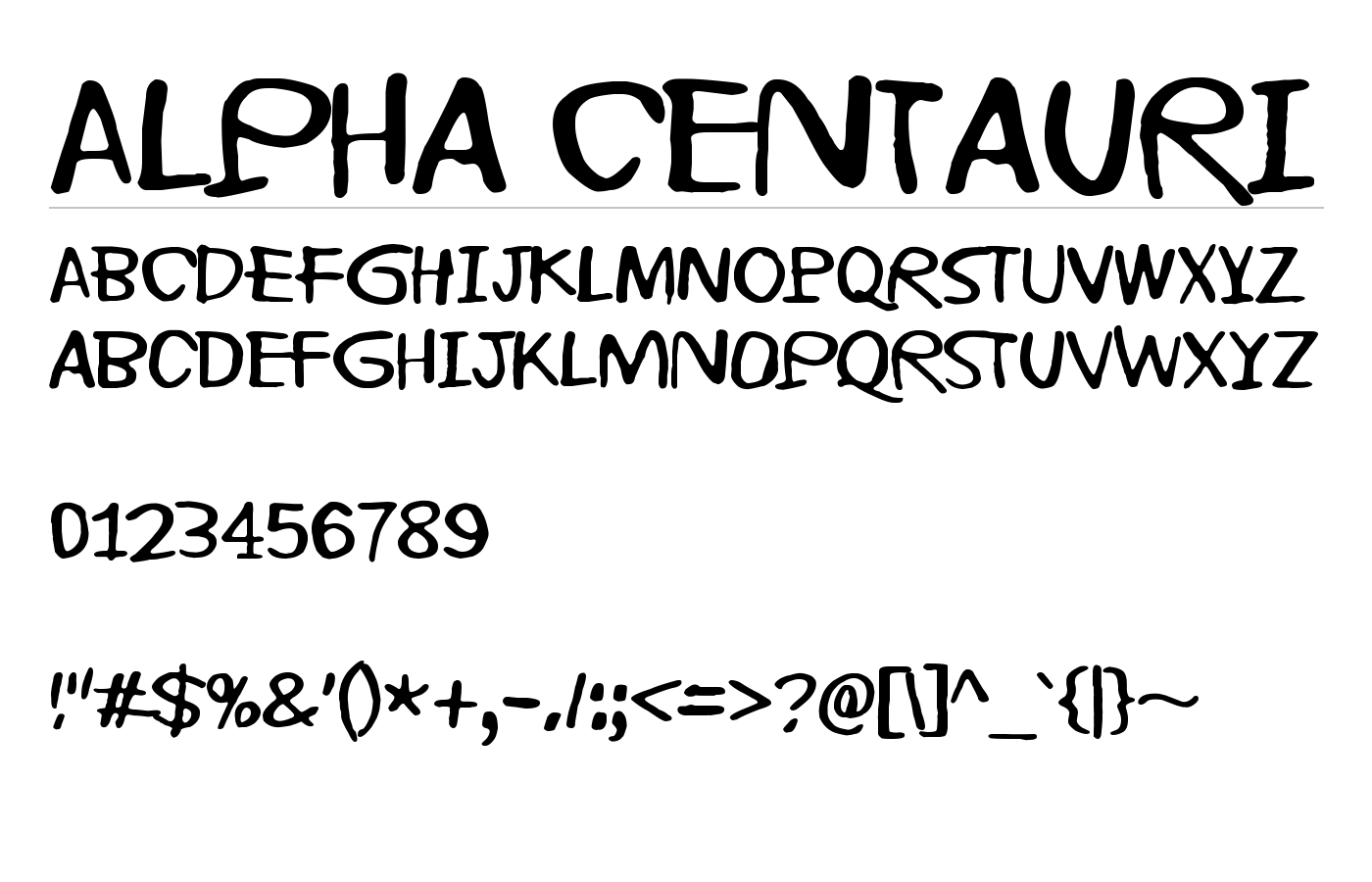
Alpha Centauri is a friendly and playful handwritten sans serif font with a casual, organic feel. Its irregular, rounded letterforms and uneven stroke widths give it a warm, approachable personality, making it ideal for fun projects, informal branding, children’s materials, and creative headlines. This font shines where a personal, lively touch is needed to connect with audiences in an engaging and relaxed way.
Alpha Centauri Font
About Alpha Centauri Font
| Font family | Alpha Centauri Font |